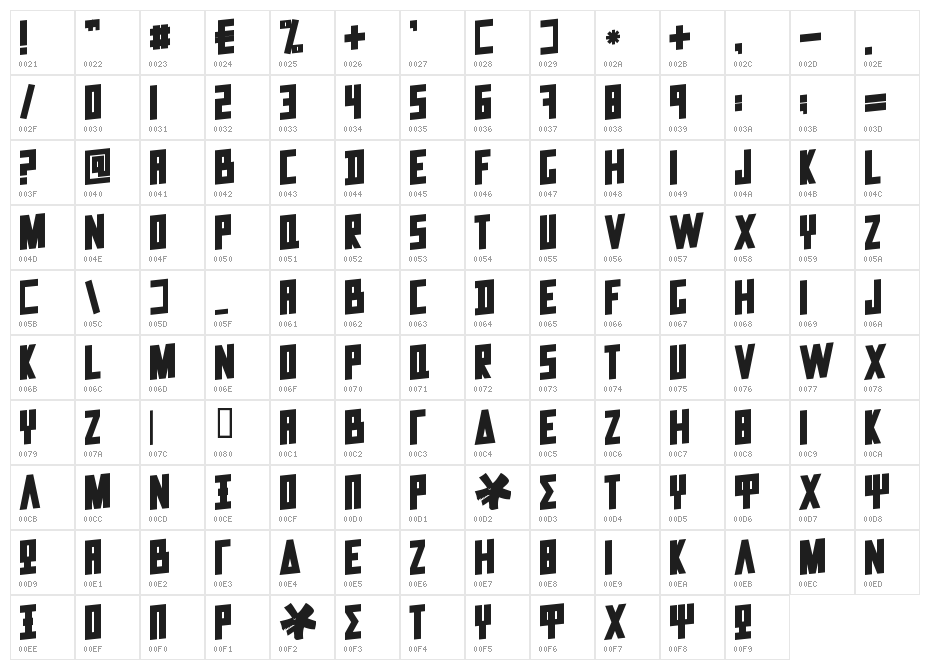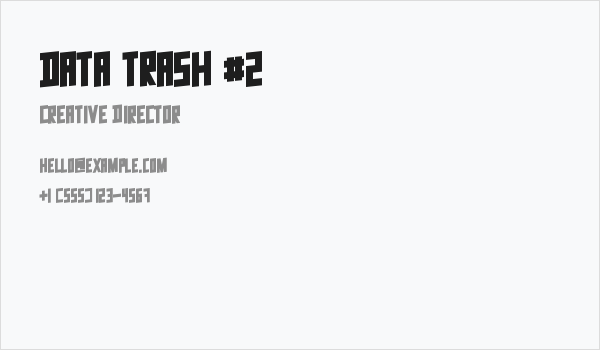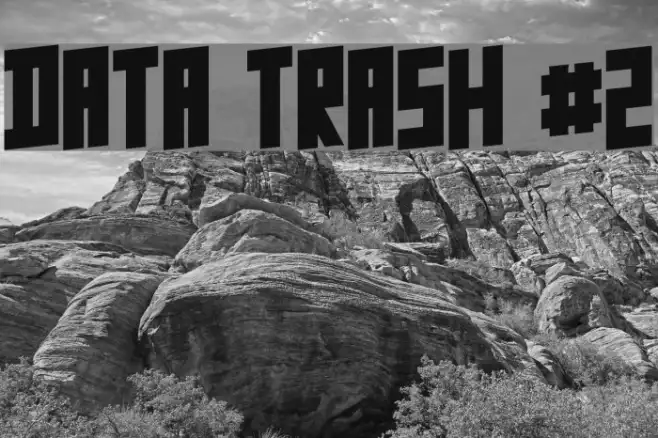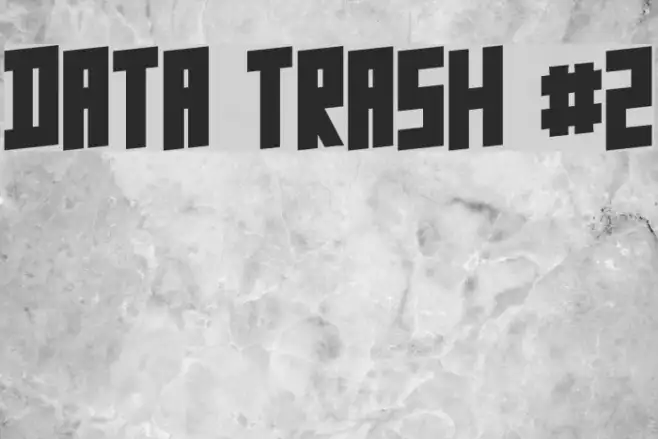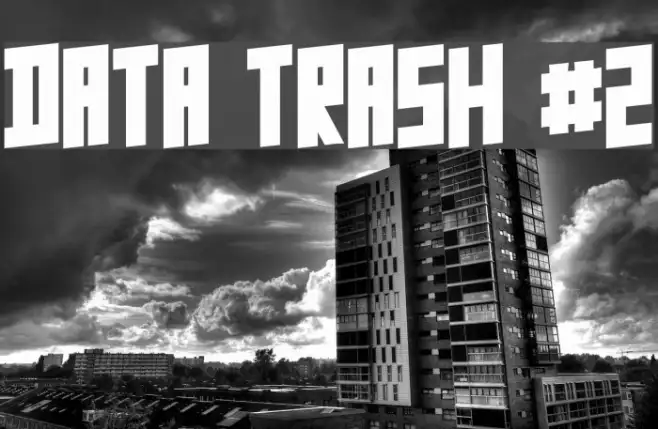
Data Trash #2 Font
Data Trash #2 Description
This bold and striking font features a highly geometric and angular design, characterized by thick, blocky letters with sharp edges and a strong presence. The uppercase and lowercase letters maintain a consistent style, creating a cohesive and impactful look. The numbers and special characters follow the same bold and angular aesthetic, ensuring uniformity across all characters. The font's design is reminiscent of industrial or futuristic themes, making it ideal for projects that require a modern and edgy appearance.
| Proposed Projects | Ideal for use in posters, headlines, logos, and branding materials that require a bold and modern statement. |